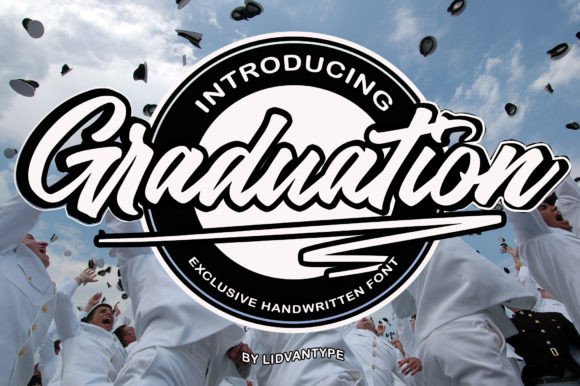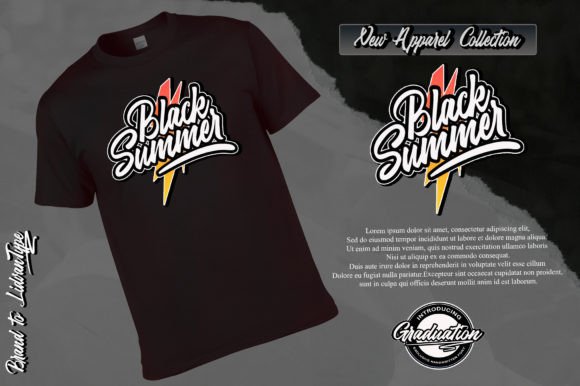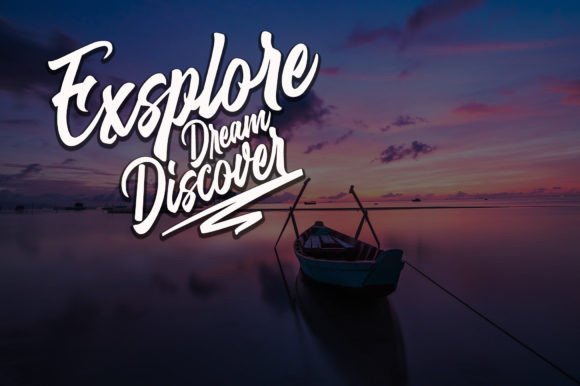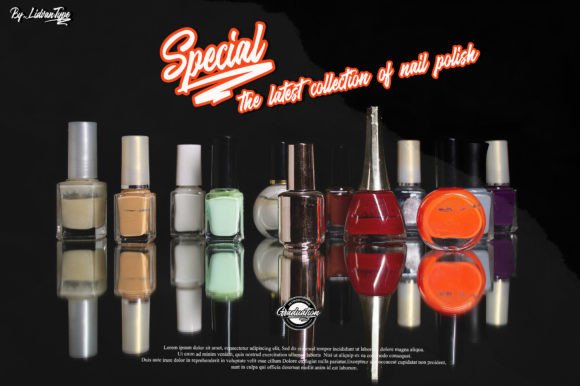
Graduation Font
Graduation is a elegant handwriting with perfect shape and stylish, looks stylish and luxurious for any design project, such as wedding invitations, thank you card, quote, greeting card, logo, business card, t-shirt design and other designs that require a touch of the hand.